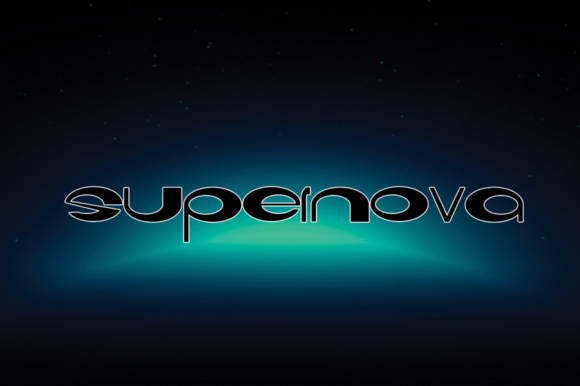
The Beckyard Font: A Rounded Display Delight
I’ll never forget the time I was working on a branding project for a trendy new cafe, and I just couldn’t find the right font to capture their playful, yet sophisticated vibe. That was until I stumbled upon Beckyard, a rounded display font that instantly won me over. In this article, I’ll share my love for Beckyard, its features, and how to make the most of it in your designs.
My Honest Review of Beckyard
So, what makes Beckyard so special? Here are a few things I love:
• ✨ **Unique rounded edges**: Beckyard’s rounded edges give it a friendly, approachable feel that’s perfect for brands that want to convey warmth and approachability.
• ✅ **High legibility**: Despite its playful nature, Beckyard remains highly legible, even at smaller sizes.
• 💡 **Versatility**: Beckyard works beautifully for both headlines and short paragraphs, making it a great all-around font for creative projects.
Of course, no font is perfect, and Beckyard does have a few quirks:
• 🤔 **Limited serif options**: Beckyard is primarily designed as a sans-serif font, which might limit its use for projects that require a more traditional serif look.
• ⚠️ **Occasional kerning issues**: As with any font, you may encounter some kerning issues, especially when pairing Beckyard with other fonts.
The Story Behind Beckyard
Beckyard was designed with the goal of creating a friendly, approachable font that’s perfect for creative projects. Its rounded edges and high legibility make it an excellent choice for brands that want to convey warmth and approachability.
Author jehansyah251
What is Beckyard best used for? Beckyard is ideal for creative projects that require a friendly, approachable font, such as branding, packaging, and advertising.
Is Beckyard suitable for body text? While Beckyard is highly legible, it’s primarily designed for display use. For longer body text, you may want to consider a more traditional serif font.
Does Beckyard support OpenType features? Yes, Beckyard supports OpenType features, including stylistic alternates, ligatures, and glyphs.